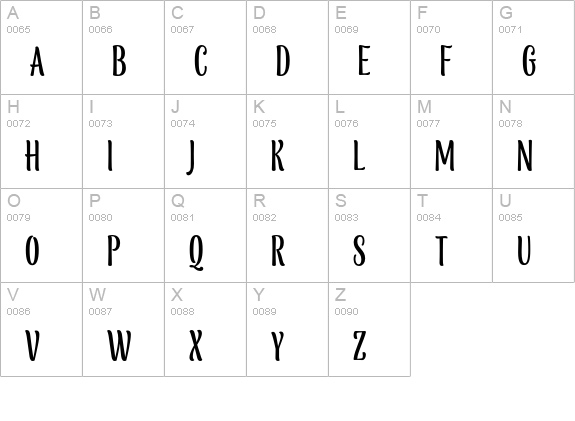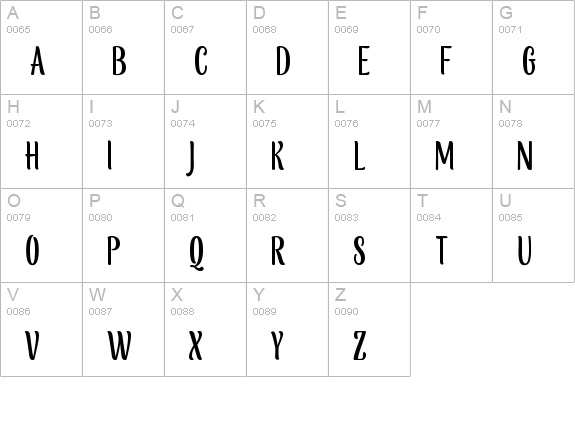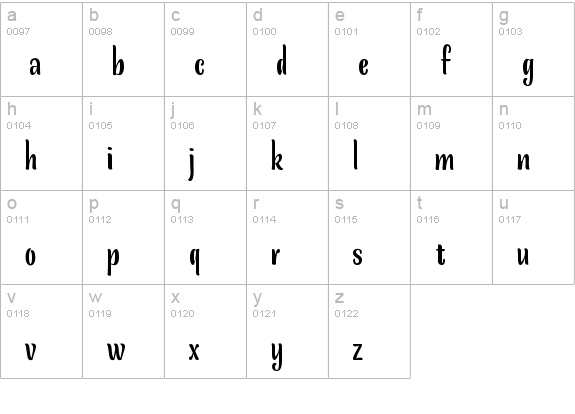
Blancmange font is a charming and elegant typeface that captures a sense of sophistication and style. Its unique design features delicate curves and flourishes that add a touch of flair to any project. Whether you're designing invitations, branding materials, or a website, Blancmange font is sure to make a lasting impression. The best part about Blancmange font is that it is completely free to download at FontsMarket.com. This means you can easily access this beautiful font without any cost, making it a valuable addition to your collection of design resources. Don't miss out on the opportunity to enhance your projects with the timeless beauty of Blancmange font. Download it today and start creating stunning designs that stand out from the rest.